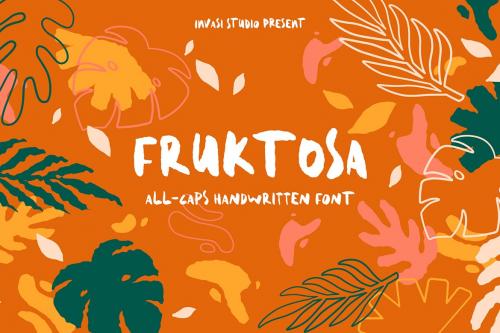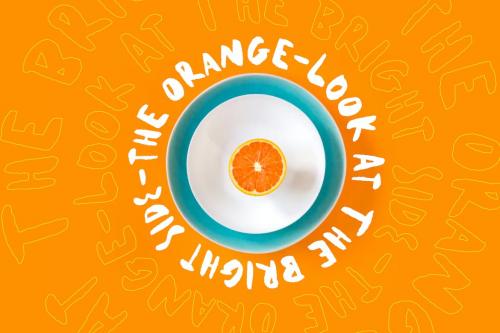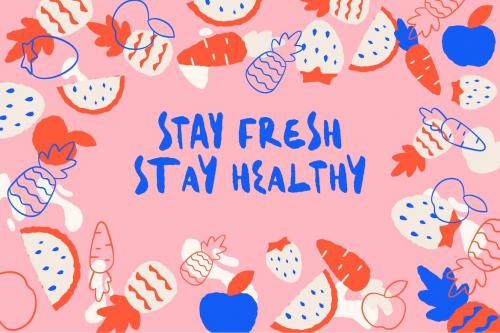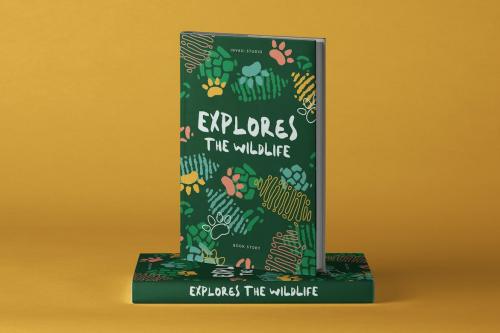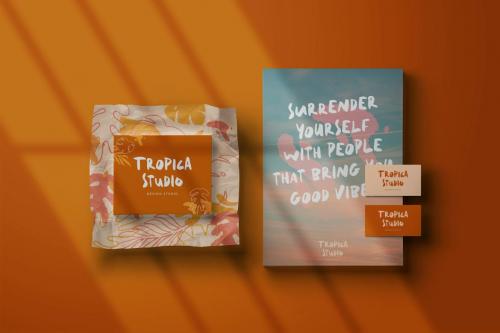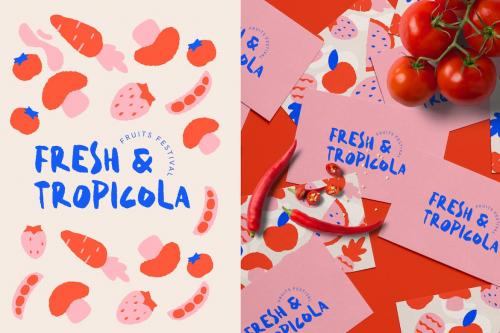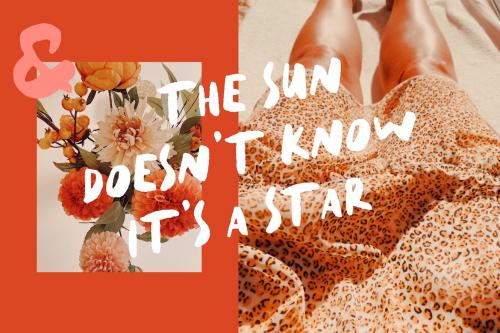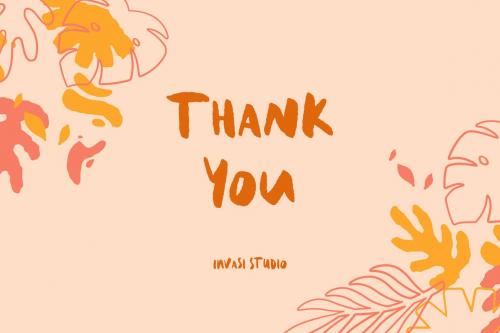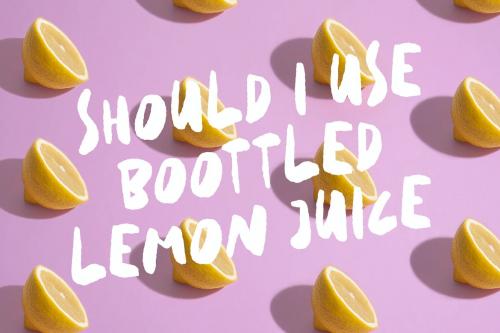
果糖 | 显示字体
Fruktosa | Display Font
Introduction our Fruktosa Font, Fruktosa is a Handwritten All-caps with Brush style font, special for your quote Display Design, which puts a bold on your projects and will inspire you to create something unique or playful design. Fruktosa Font will help you to create special and touching typographical designs for your display quote projects, It is perfect for headings, flyers, greeting cards, product packaging, book cover, printed quotes, logotype, apparel design, album covers.
Introduction our Fruktosa Font, Fruktosa is a Handwritten All-caps with Brush style font, special for your quote Display Design, which puts a bold on your projects and will inspire you to create something unique or playful design.
Fruktosa Font will help you to create special and touching typographical designs for your display quote projects, It is perfect for headings, flyers, greeting cards, product packaging, book cover, printed quotes, logotype, apparel design, album covers.